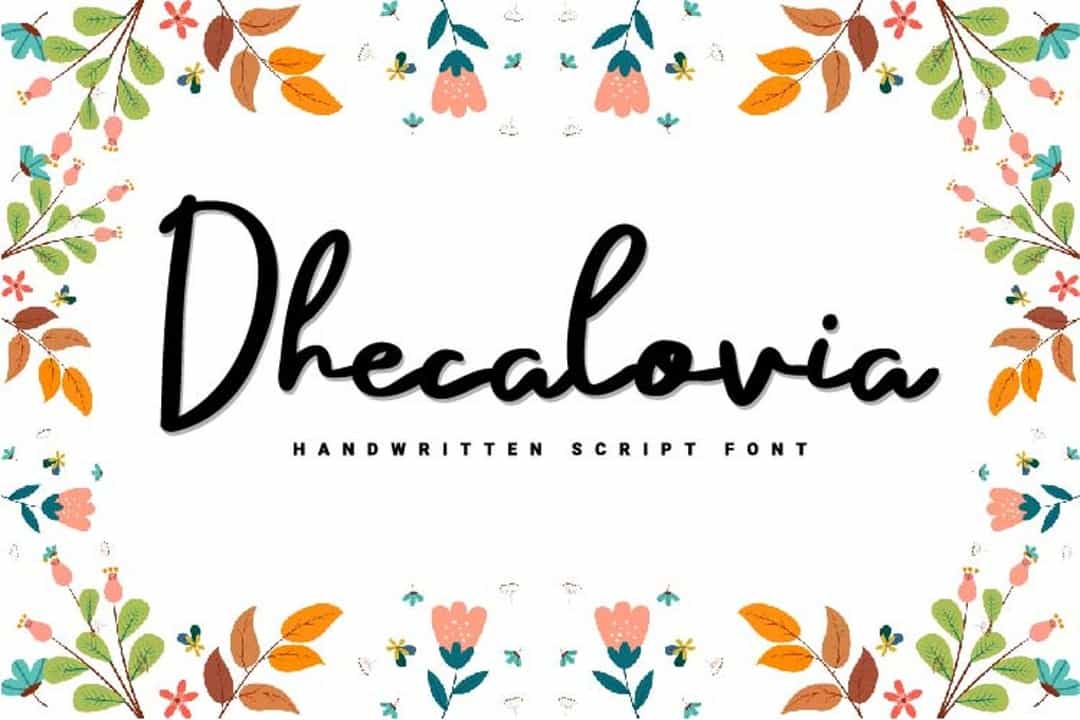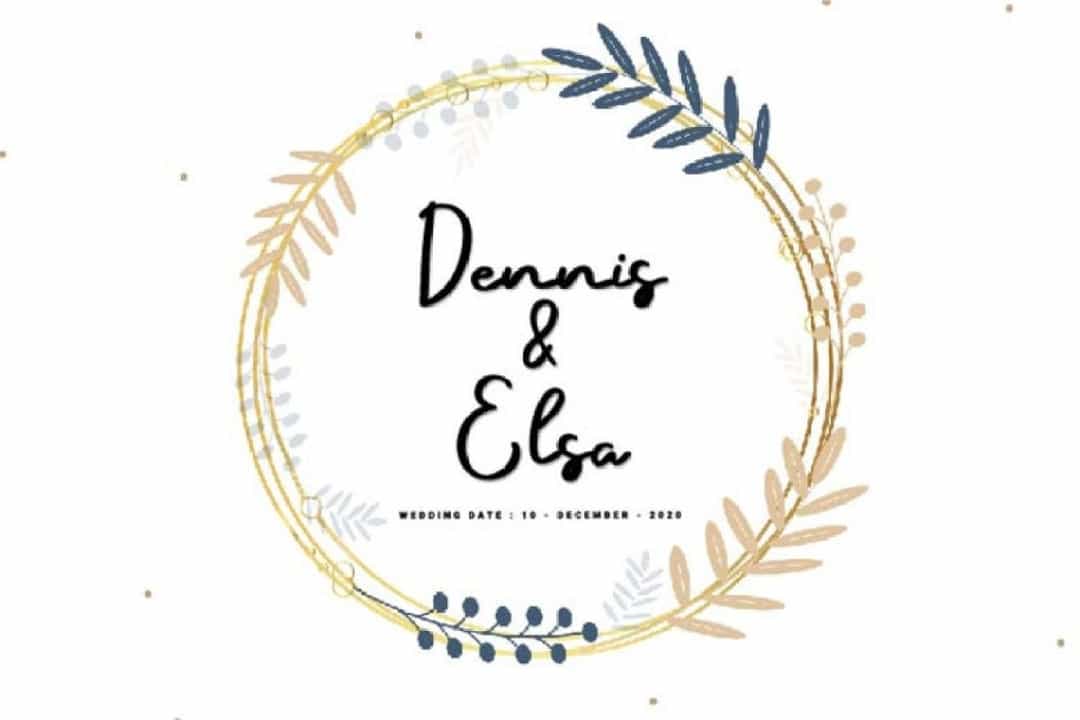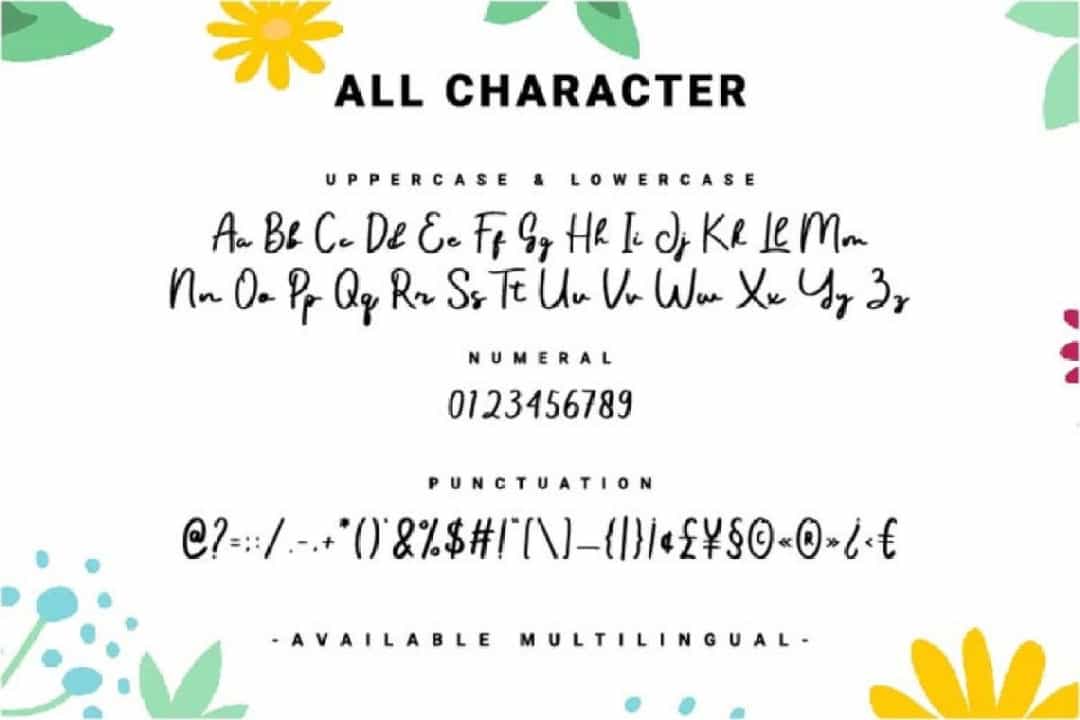
Discover Dhecalovia Font, part of the Handwritten Script Personal collection—a versatile and unique font perfect for adding a personal touch to your projects. Download it for free and enjoy crafting designs with style, from invitations to social media posts. This font is available exclusively for personal use, giving you the freedom to create without limits. Unlock your creativity with Dhecalovia Font today!
Dhecalovia is an open and flexible font. You can apply it to the physical or online projects, for example crafting or craft, creative posts on Facebook, invitations for wedding, watermarks for photographers, branding of accessories, packages for food and many more attractive applications! Use your creativity to the maximum.